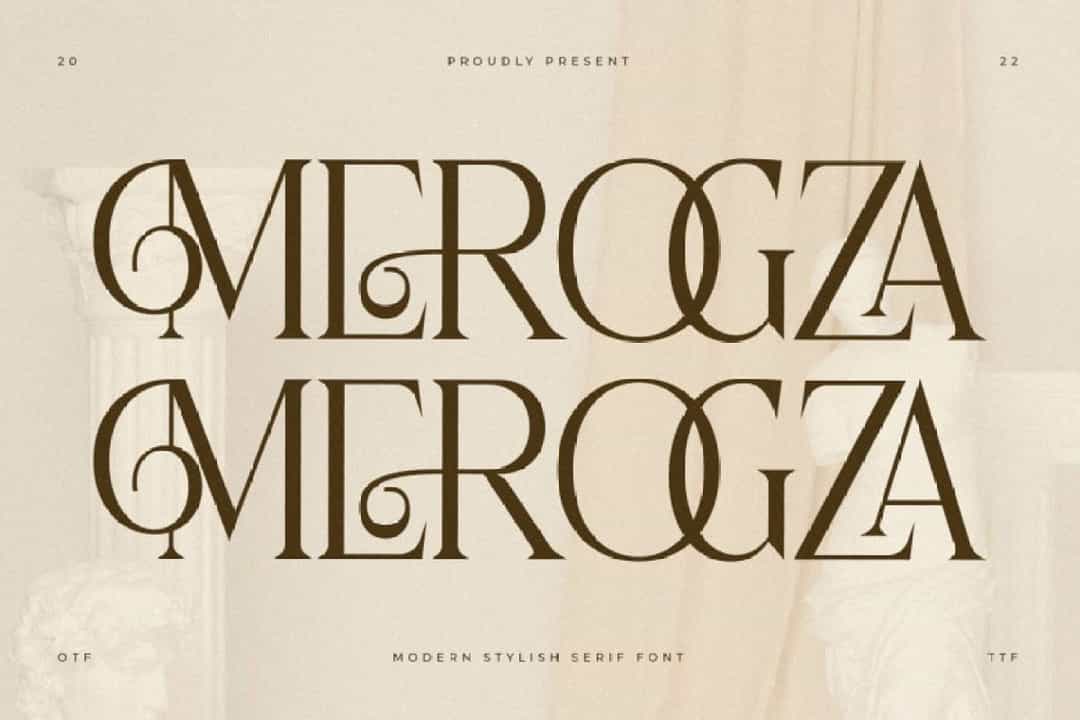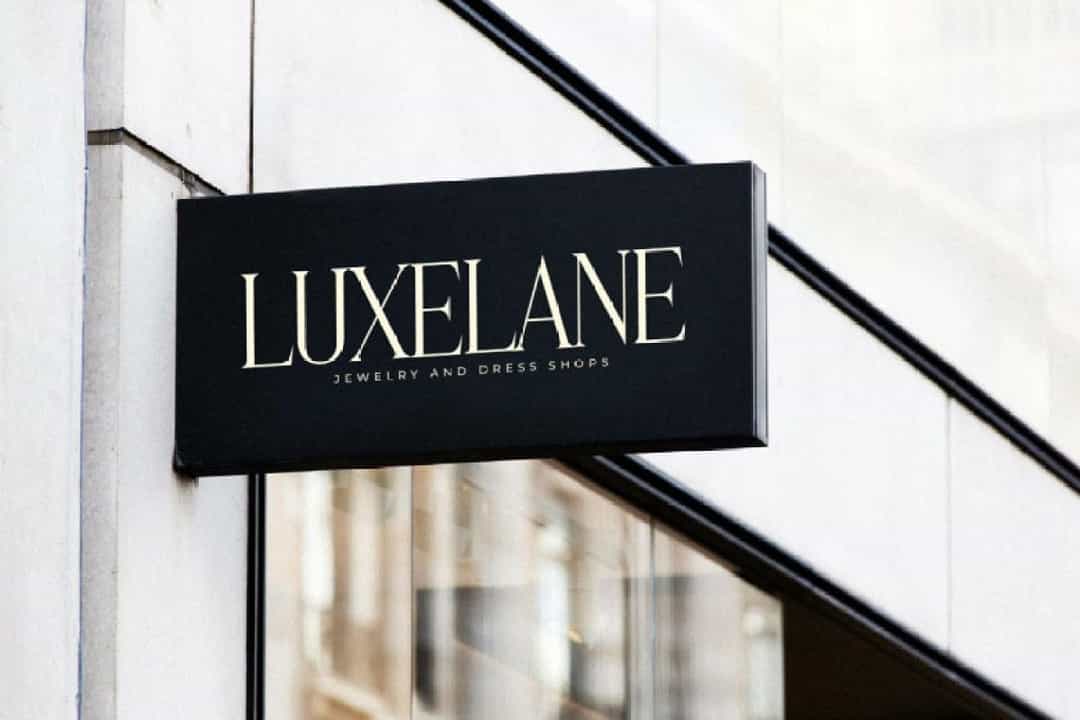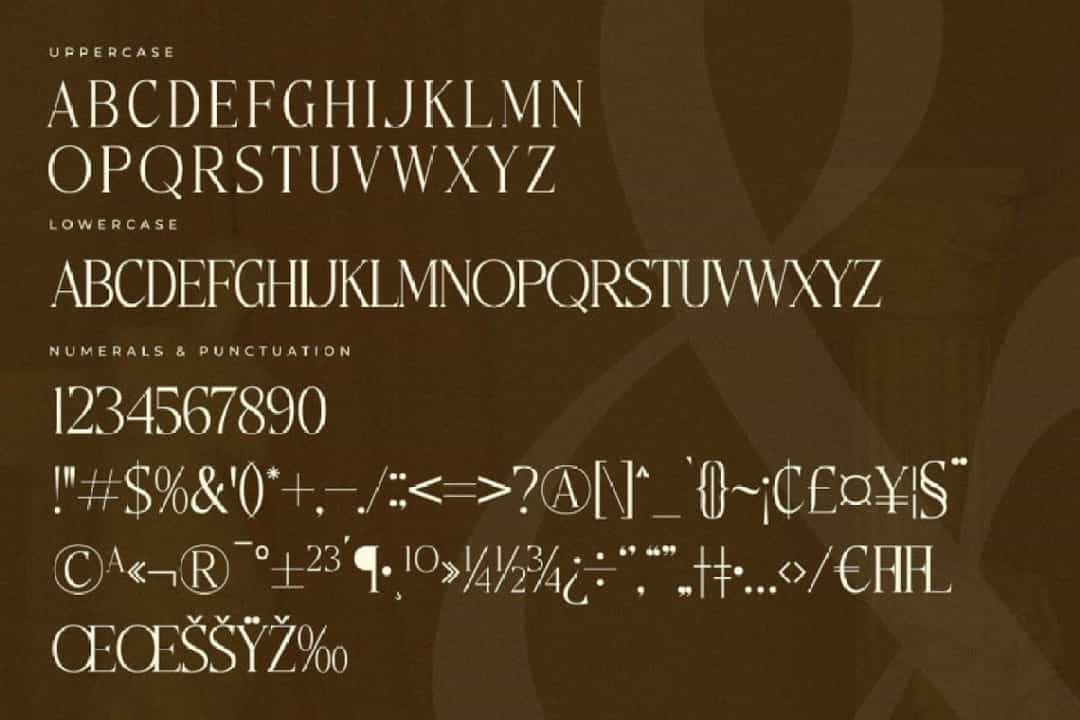
Merogza can be described as an iconic and contemporary serif typeface with its own distinct uniqe style and modern appearance, making it ideally suited to creating classy logos, movie, book name designs, clothing brand name designs, magazines, lettering layouts as well as quotes or many other applications.